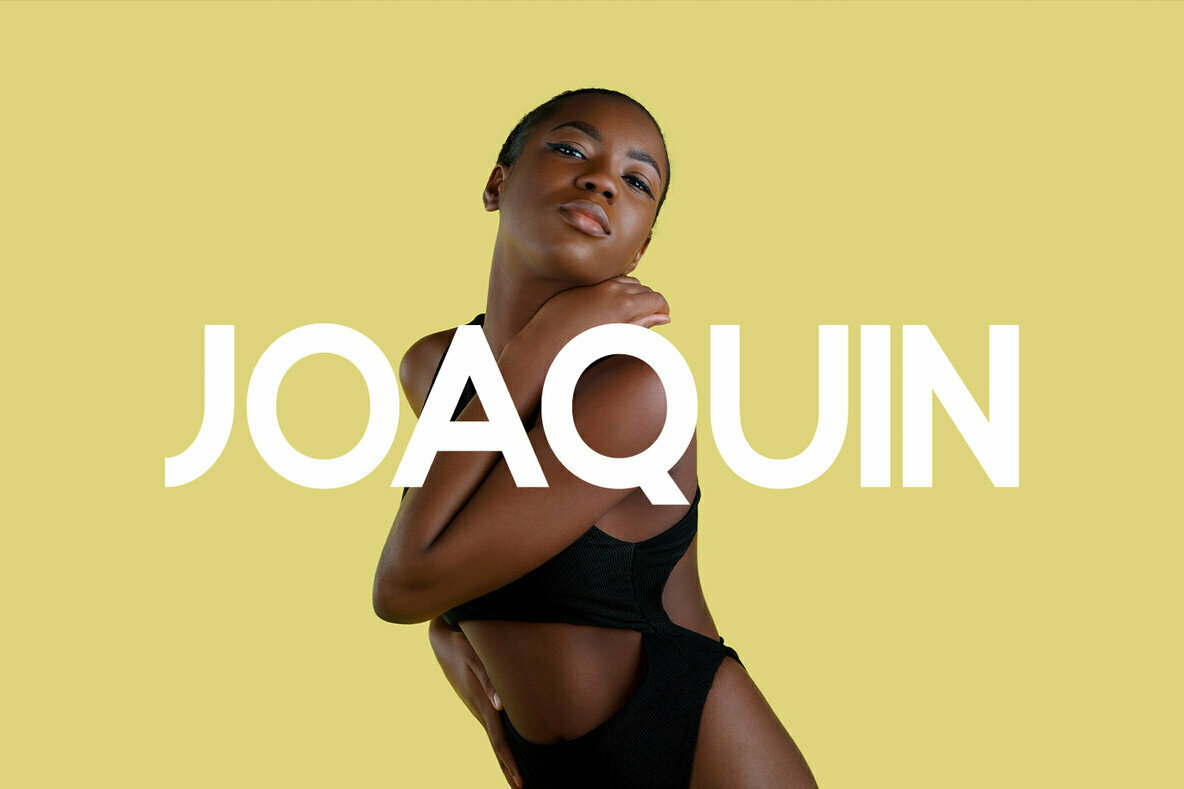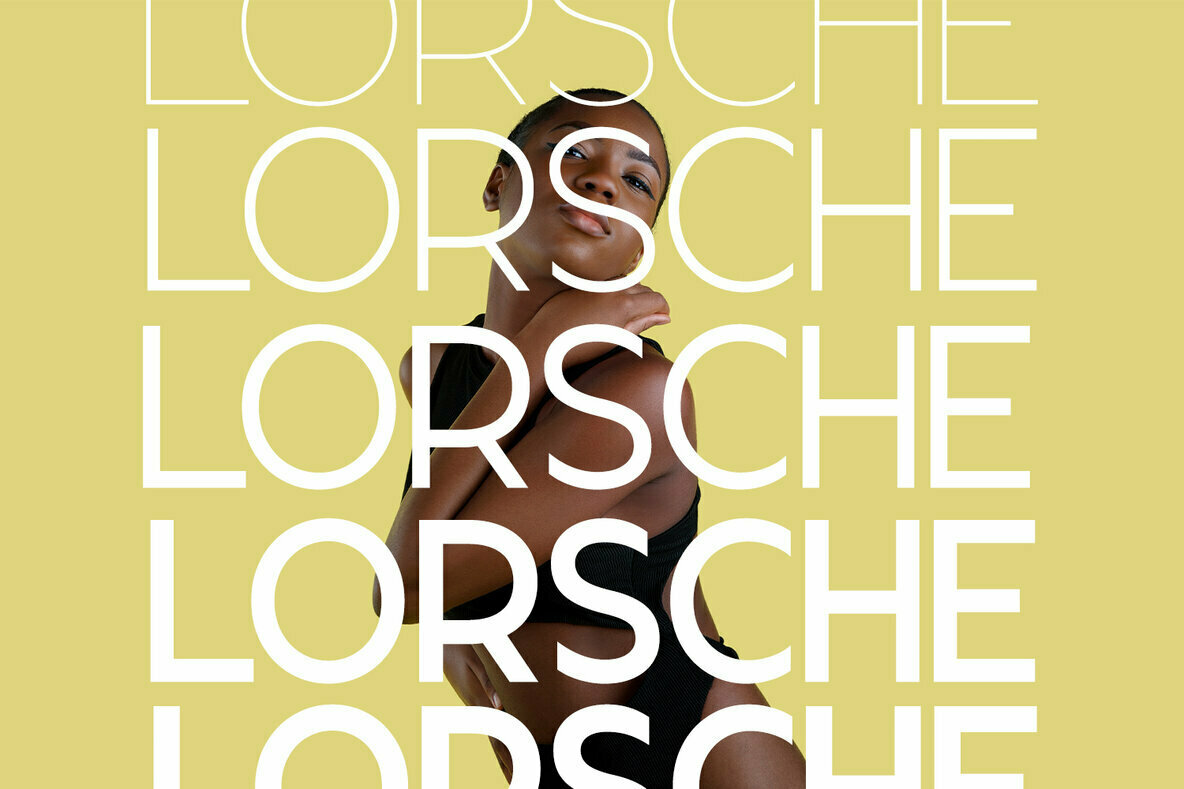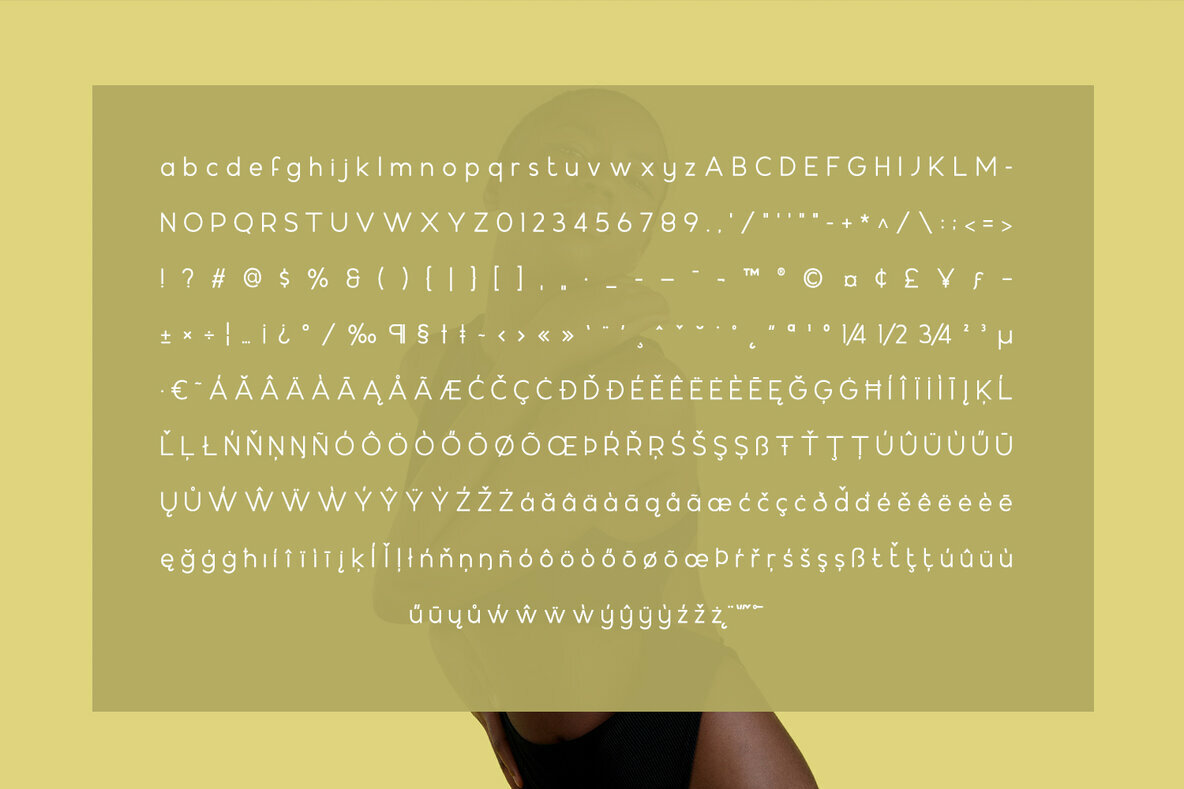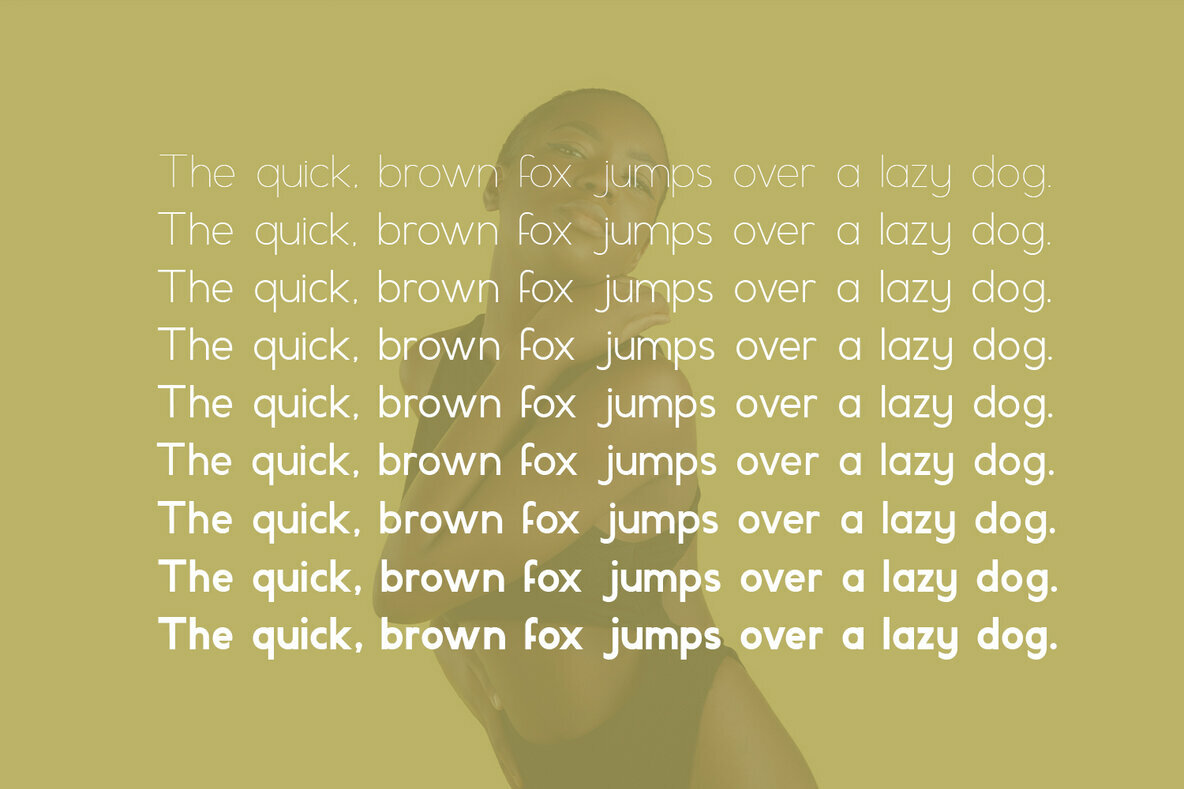
Lorsche Display Font
Lorsche Display emerges as a modern elegant typeface with distinctive character. Its versatility shines in both large and small applications, making it a reliable choice for branding, logos, and headlines. With strong capitals and a smooth, open lowercase, it enhances clarity and visual appeal.Lorsche Display: Modern Elegance in Typography